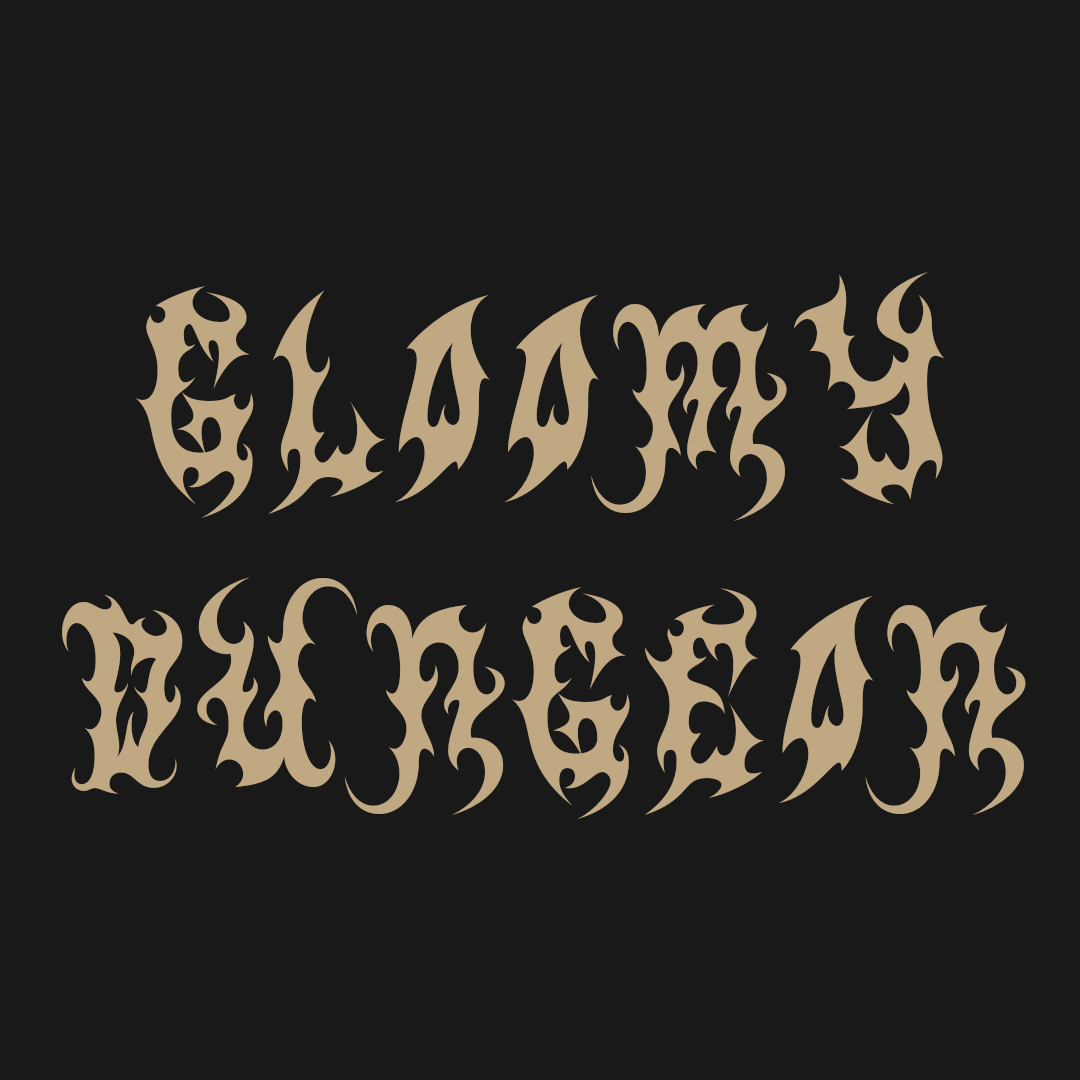
Gloomy Dungeon — CS Spooky
Gothic typography image using CS Spooky blackletter font. Dark aesthetic design with gothic words. Free for personal use — buy commercial license at craftsupply.co. Perfect for dark aesthetic boards, gothic art, and typography inspiration.